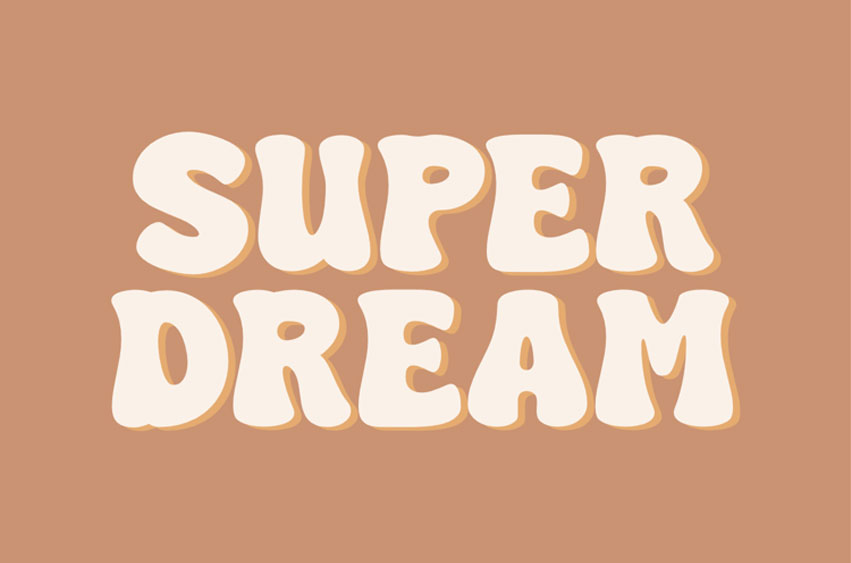
Super Dream Font
Super Dream Font is a Retro font that channels nostalgic vibes from past decades, often characterized by bold, stylized lettering and vintage aesthetics.
This font is ideal for designs that aim to capture the charm and essence of earlier eras, such as posters, branding, or advertisements inspired by mid-century or 70s-80s design trends. Its distinct style makes it perfect for giving your project a timeless and unique flair.